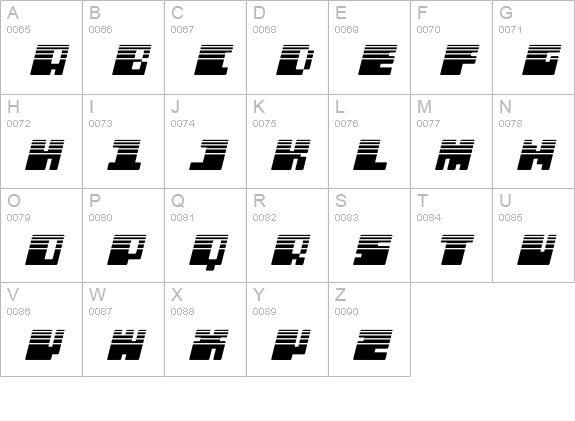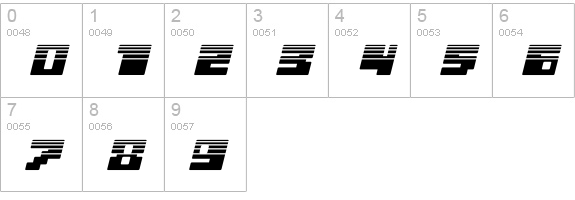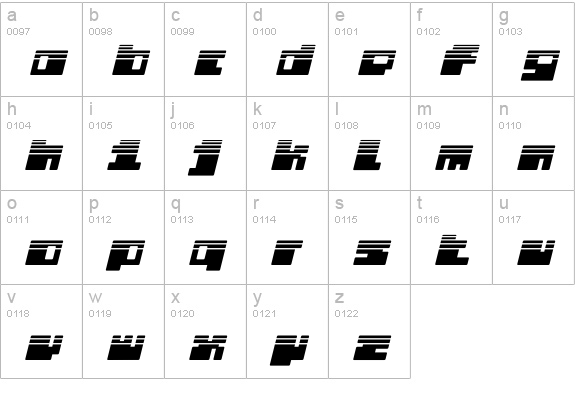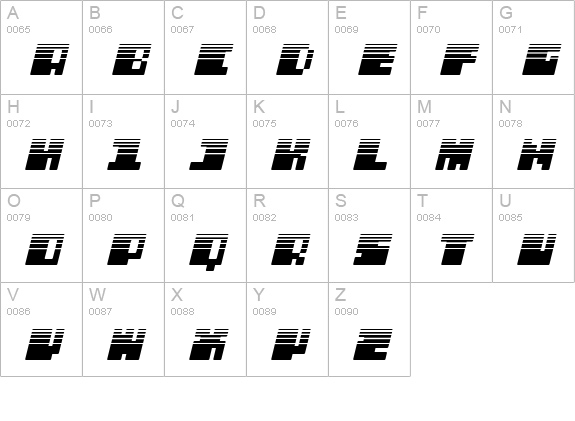
DS PTRLDizelPlus is a stylish and modern font that exudes sophistication and elegance. Its sleek lines and contemporary design make it perfect for a wide range of creative projects, from branding to advertising to social media graphics. This versatile font is sure to make your text stand out and leave a lasting impression on your audience. And the best part? DS PTRLDizelPlus is completely free to download at FontsMarket.com. So whether you're a professional designer looking for a new go-to font or a casual creator in need of some fresh typography, this font is a fantastic choice that won't break the bank. Don't miss out on the opportunity to enhance your designs with this stunning font - download DS PTRLDizelPlus today!